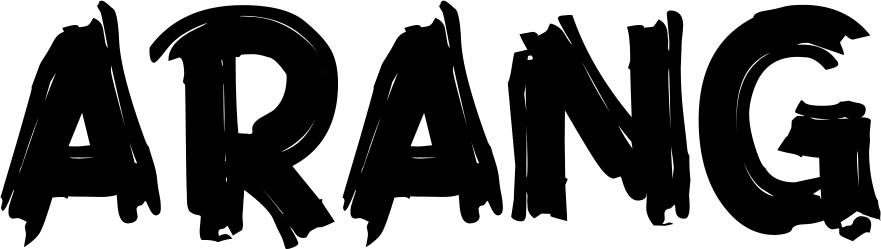
A Arang Font
A Arang is designed with bold and brush-stroke characters that can transfer your texts or headline into something cool, scary, and also fun. You can use this free script font for drama and scary movie titles, channel banners, gaming, and movie headlines. This fat marker font has a capitalized alphabetical set.